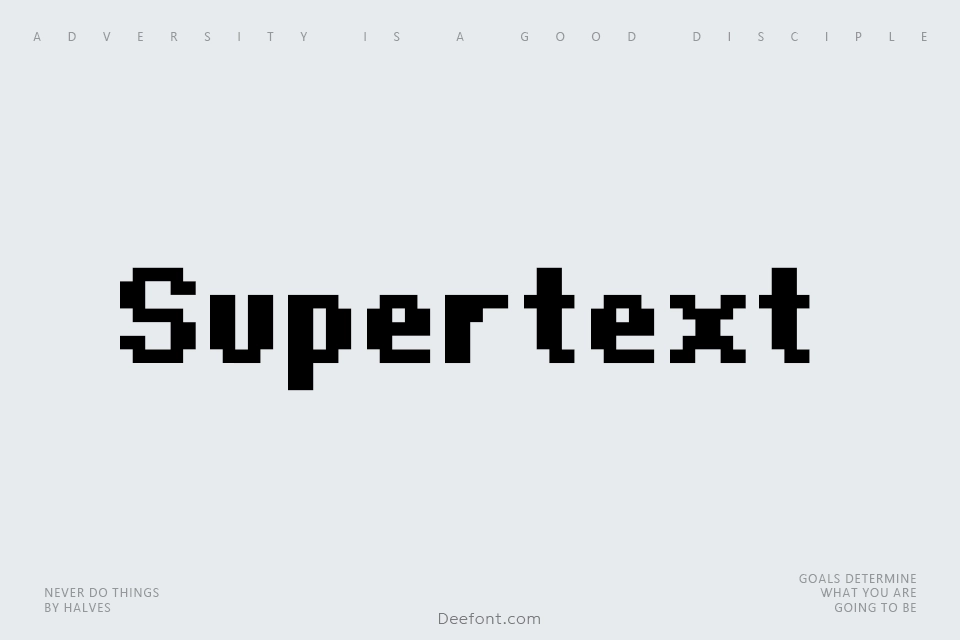
Supertext Font
Supertext is a versatile bitmap pixel font family created by Sven Stüber, offering three distinct variations (Supertext 01, 02, and 03) with regular and bold styles. This iconic dot matrix-inspired typeface features clean, compact letterforms optimized for small sizes and digital display, making it ideal for retro gaming, pixel art, and contemporary minimalist design projects. With 108 glyphs and comprehensive language support, Supertext combines nostalgic aesthetic with functional readability. The font’s geometric precision and uniform spacing ensure excellent legibility across various applications, from user interfaces to poster design. Completely free and widely available, Supertext has gained significant popularity since its debut, embodying the timeless appeal of digital typography.